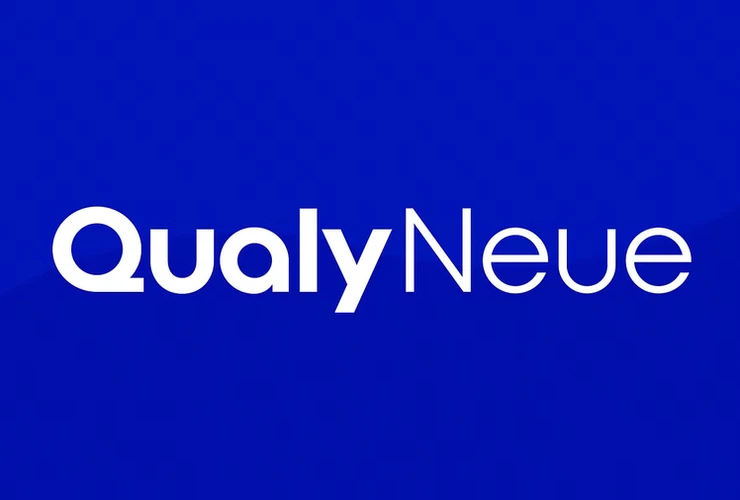
Qualy Neue: The Ultimate Font Family for Logo & Branding
Qualy Neue is a refined and versatile font family designed specifically for logos and branding. Crafted with precision, each character in Qualy Neue has been thoughtfully created to cater to the unique demands of logo design, ensuring a professional and polished appearance. Available in various weights, including Light, Regular, Medium, and Bold, this font family offers flexibility and adaptability, making it perfect for a wide range of creative projects.
Features and Benefits
The Qualy Neue font family stands out for its ambition, creativity, and modern aesthetic. It provides a comprehensive character set that includes A-Z, 0-9, 54 punctuation marks, 199 Latin diacritics, and 94 Cyrillic characters. This extensive character set makes it ideal for both Western and Eastern European languages, as well as for Cyrillic script users. The Light weight is particularly suited for short text, while other weights offer versatility for various branding needs.
Designed to be simple yet urban, Qualy Neue brings a sleek and contemporary feel to any project. Its clean lines and balanced proportions make it an excellent choice for ambitious and modern brands. Whether you’re crafting a corporate identity or creating eye-catching promotional materials, Qualy Neue provides the creative edge you need to stand out.